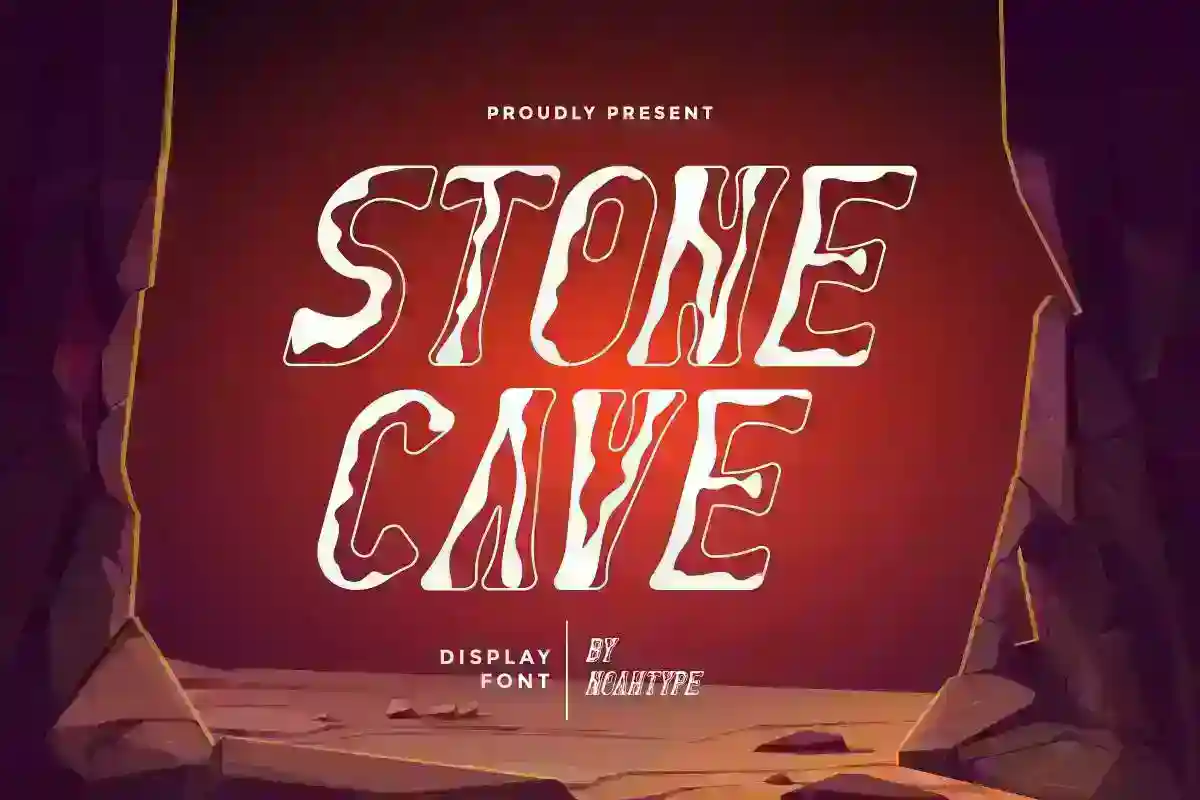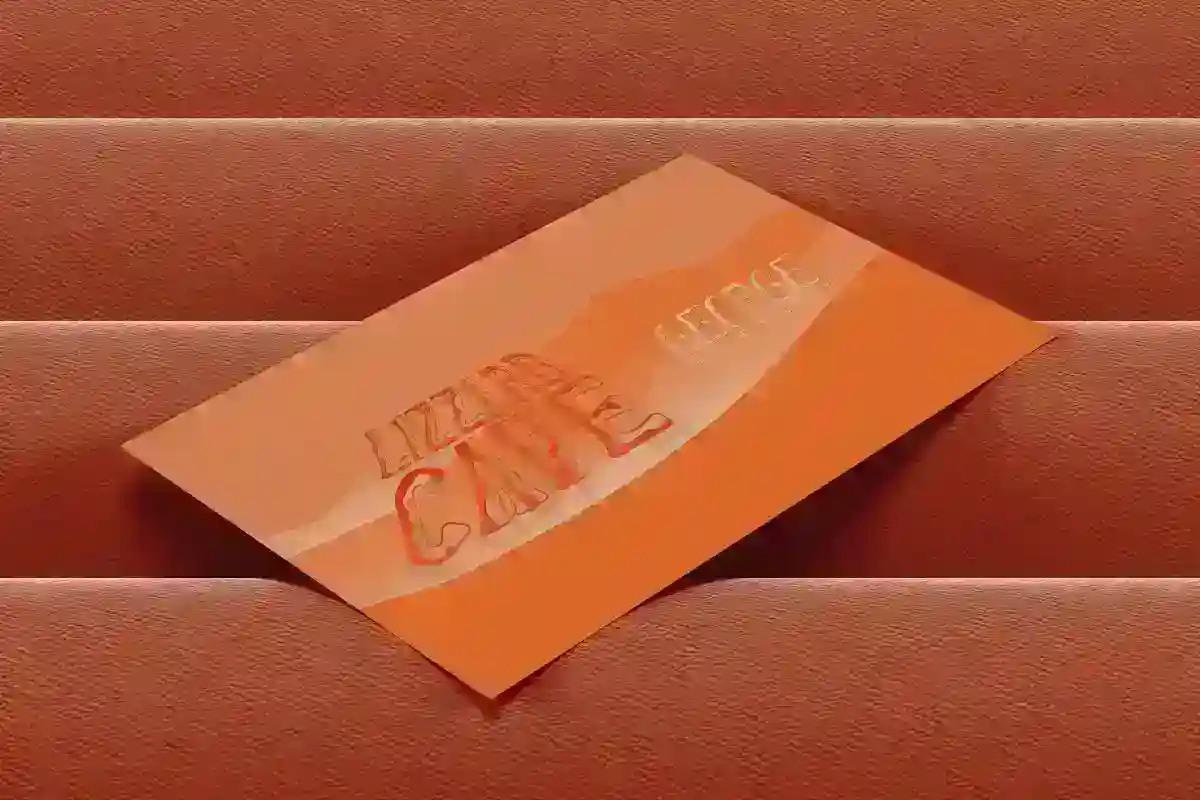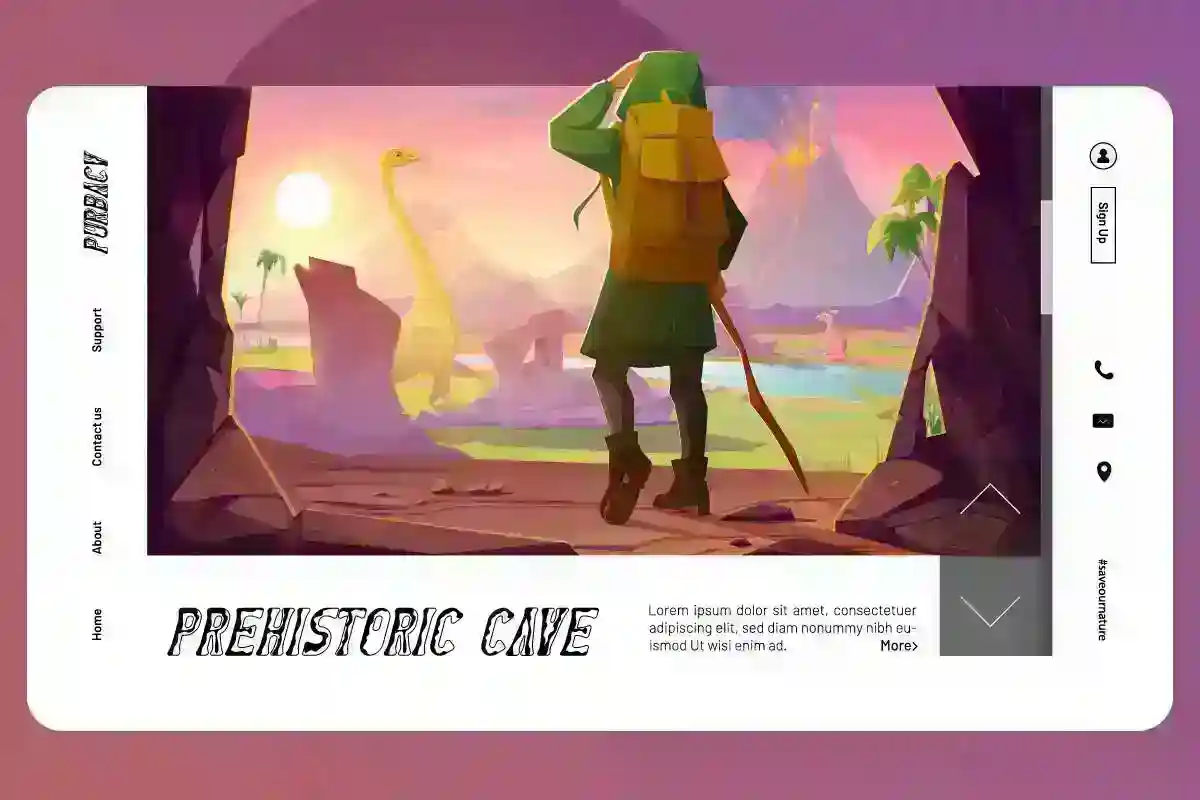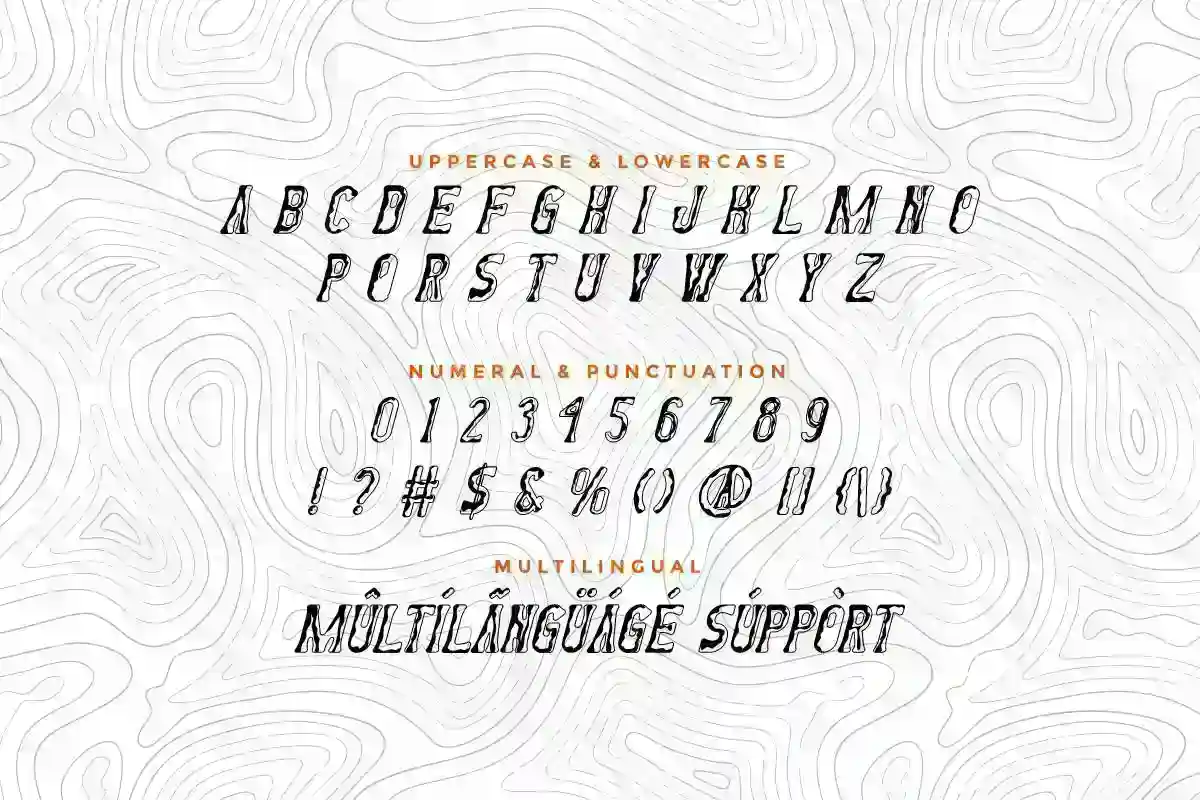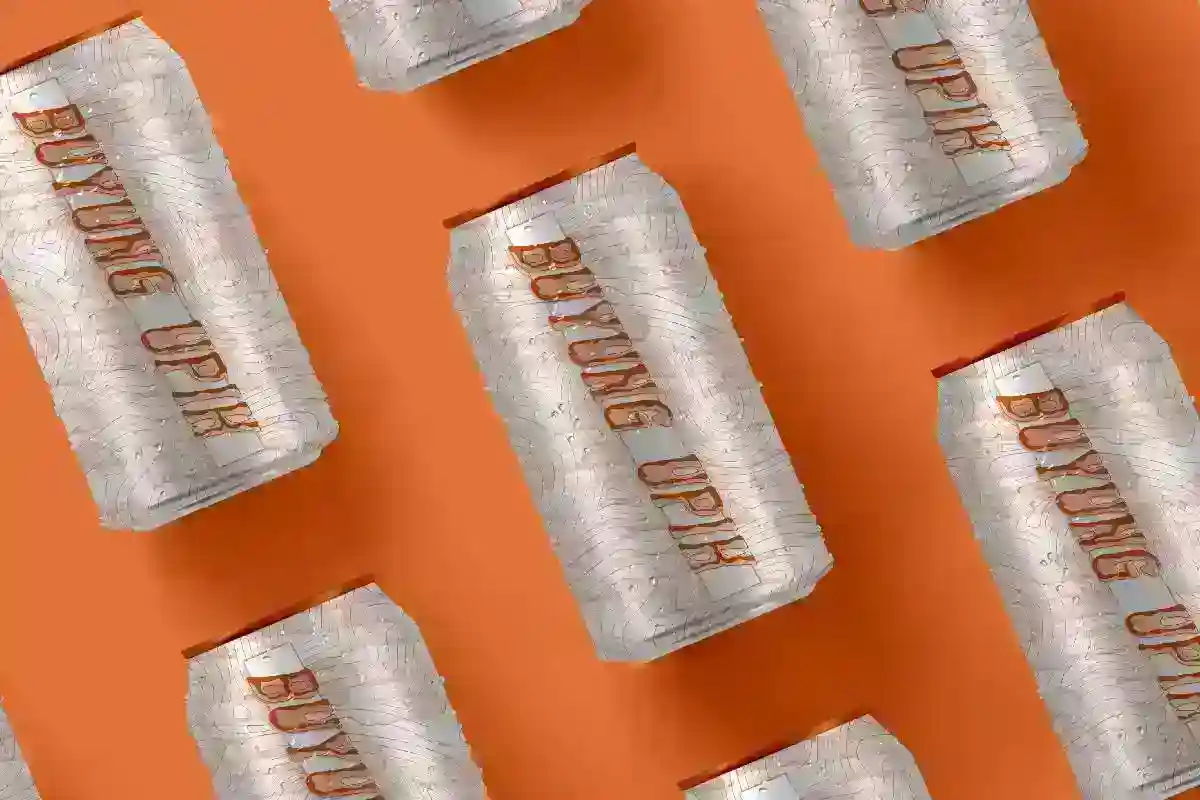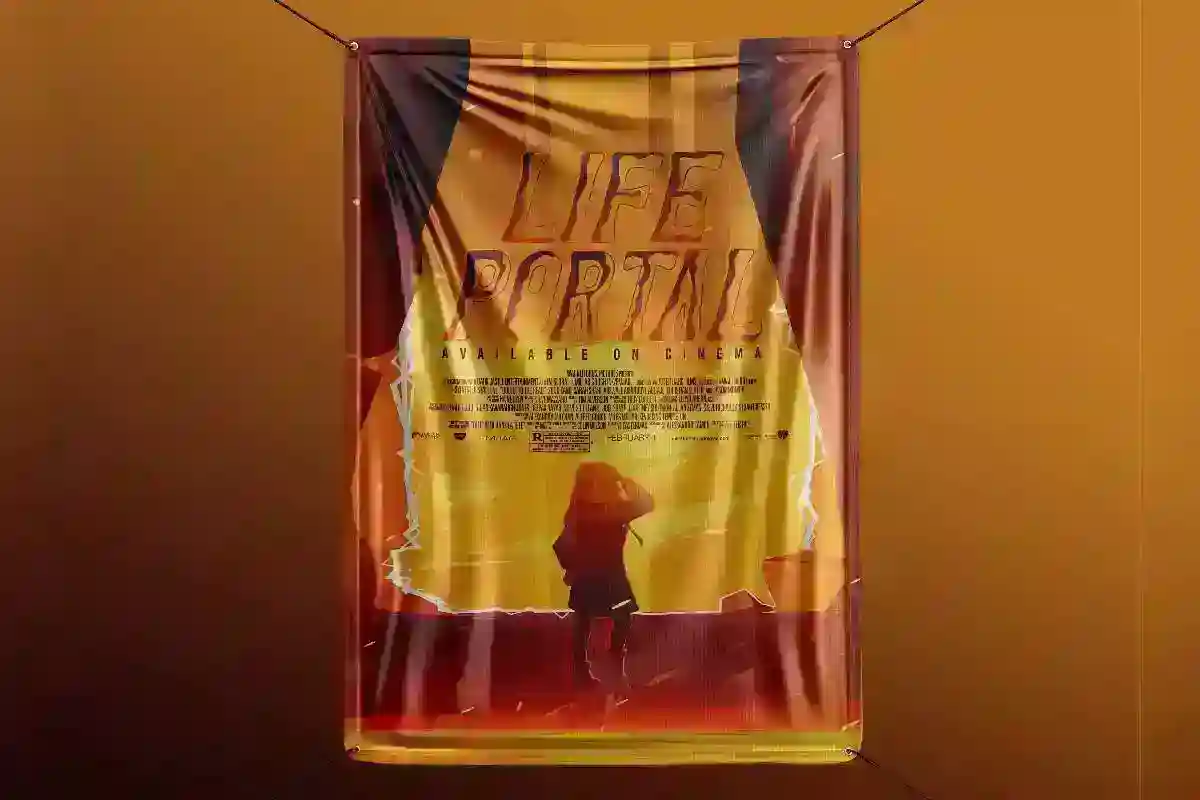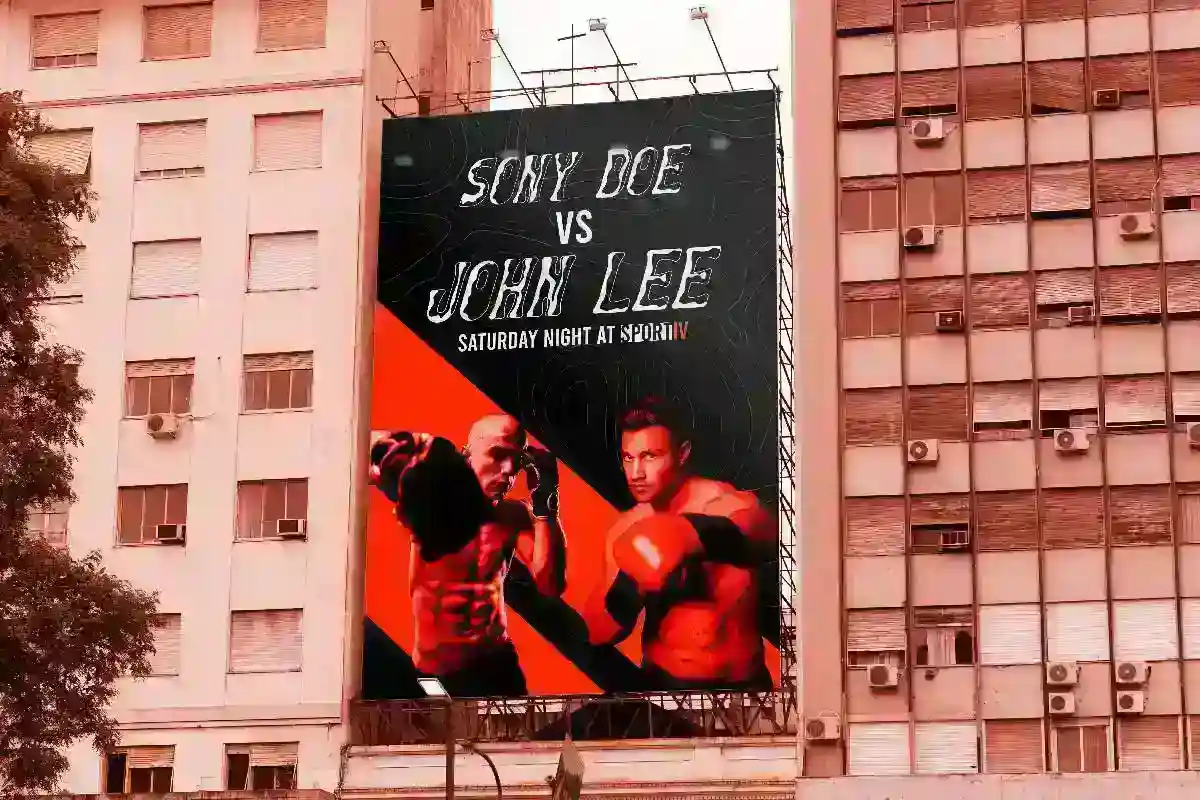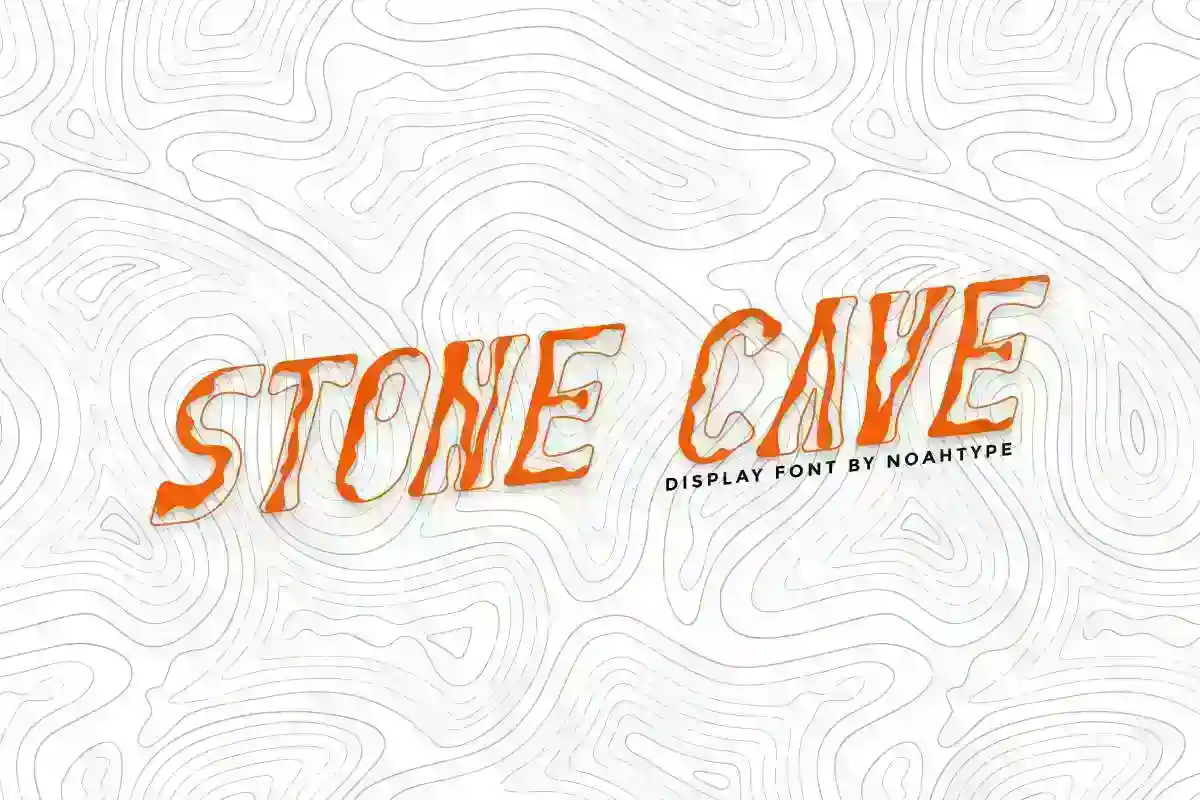
Stone Cave Font is fun display font created by NoahType, inspired by some old funny cartoon animation. This typeface is different and unique, it has lines like mossy cave stone shadows on each letter. This would be perfect for industry: animator, author, food brand, game, movie, publishing, sport, and more.
Stone Cave Font includes set Basic Character in ALL CAPS with one size, Numerals and Punctuation to create a stylish look by adding more unique fonts to enhance your awesome projects. It will be perfect for your project such as billboard, blog headers, business card, creating logo, label, poster, product packaging, signage, etc.
Bring the power of nature and the essence of ancient craftsmanship into your designs with Stone Cave Display Font. Perfectly crafted for impactful titles, striking logos, and attention-grabbing headlines, Stone Cave gives your project a unique and commanding presence.
Whether you’re working on branding, poster design, packaging, t-shirt prints, or event promotions, this font will make your work stand out. Its solid letterforms and strong texture create a visual statement that’s both powerful and artistic. From modern adventure themes to vintage-inspired projects, Stone Cave is your go-to typeface for designs that demand attention.